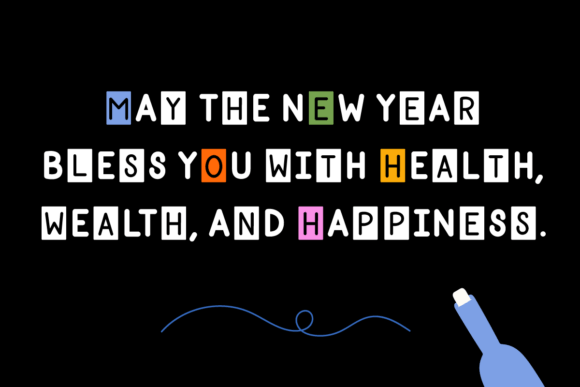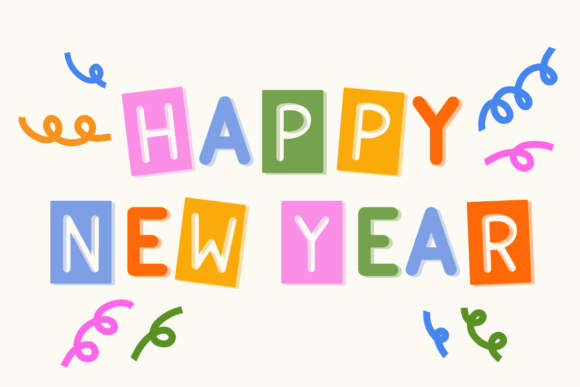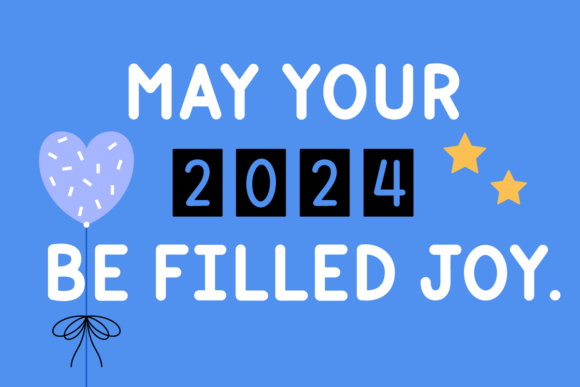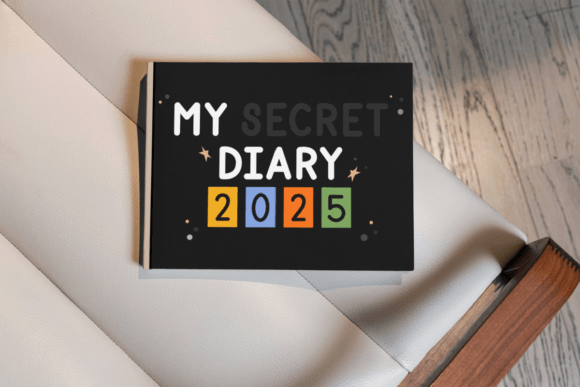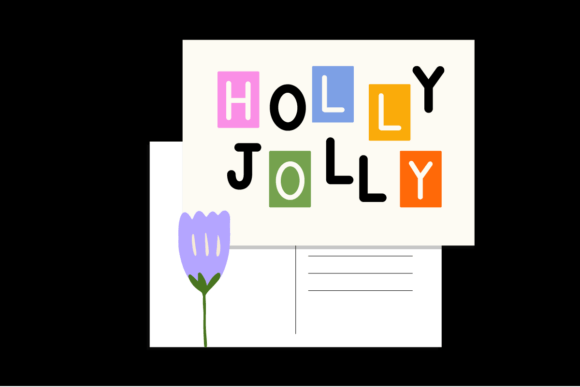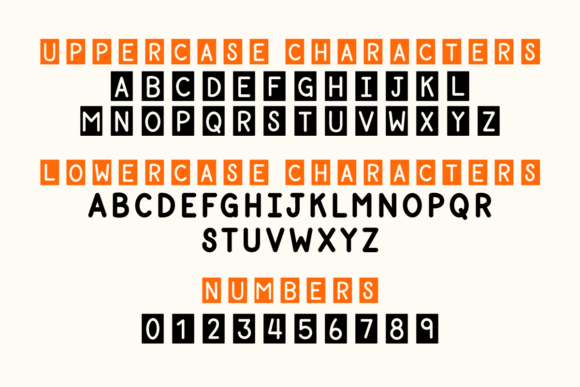
Happy New Year Font: The Perfect Addition to Your Playful Projects
Are you looking for a font that adds a touch of playfulness and festivity to your designs? Look no further than the Happy New Year font! This decorative font is perfect for a wide range of projects, from New Year’s cards to Christmas invitations, and everything in between.
What is Happy New Year Font?
The Happy New Year font is a card decorative font that is designed to bring a smile to your face. Its playful and fun design makes it perfect for projects that require a lighthearted touch. Whether you’re a designer, crafter, or DIY enthusiast, this font is sure to become a favorite in your collection.
Uses for Happy New Year Font
The Happy New Year font is incredibly versatile and can be used for a wide range of projects, including:
- New Year’s cards and invitations
- Christmas decorations and invitations
- T-shirts and other apparel
- Mugs and other ceramics
- Stickers and labels
- Playful quotes and posters
- Illustrations and artwork
Why Choose Happy New Year Font?
There are many reasons why the Happy New Year font is a great choice for your projects. Here are just a few:
- Playful design: The Happy New Year font has a fun and playful design that is sure to add a touch of whimsy to your projects.
- Versatility: This font can be used for a wide range of projects, from digital designs to print materials.
- High-quality design: The font is designed with high-quality graphics, ensuring that it looks great even at large sizes.
Tips for Using Happy New Year Font
Here are a few tips for getting the most out of the Happy New Year font:
- Experiment with different colors: The Happy New Year font looks great in a wide range of colors, so don’t be afraid to experiment and find the perfect hue for your project.
- Pair with other fonts: The Happy New Year font pairs well with other fonts, so try combining it with a sans-serif font for a fun and modern look.
- Use it sparingly: While the Happy New Year font is fun and playful, it can be overwhelming if used too much. Use it sparingly to add a touch of whimsy to your design.
The Happy New Year font is a fun and playful decorative font that is perfect for a wide range of projects. Its versatility, ease of use, and high-quality design make it a great addition to any designer’s collection. Whether you’re creating New Year’s cards, Christmas invitations, or just want to add a touch of whimsy to your designs, the Happy New Year font is sure to become a favorite.